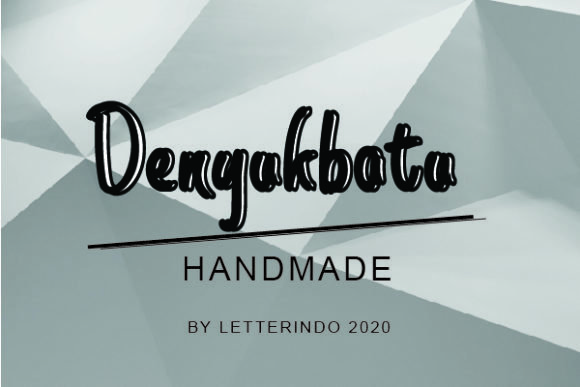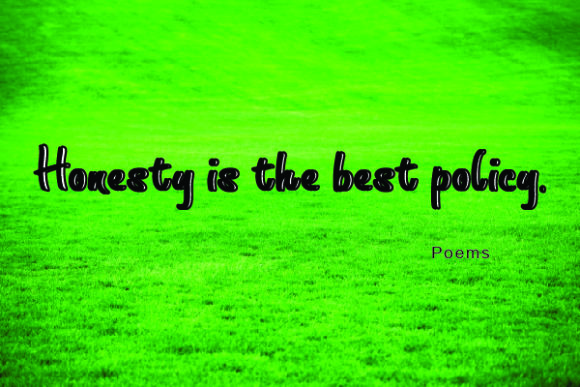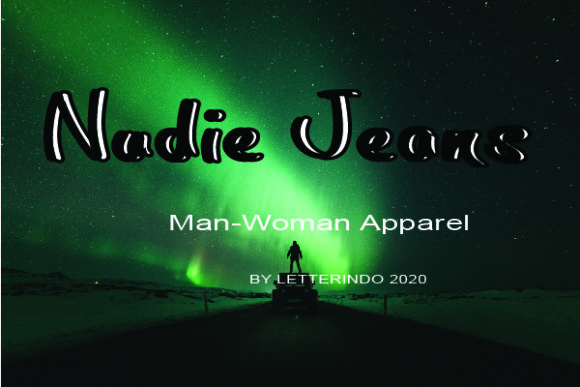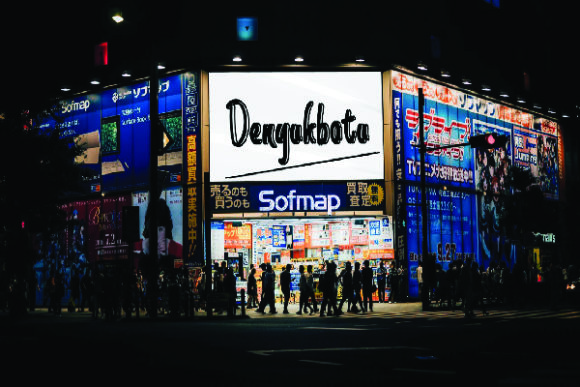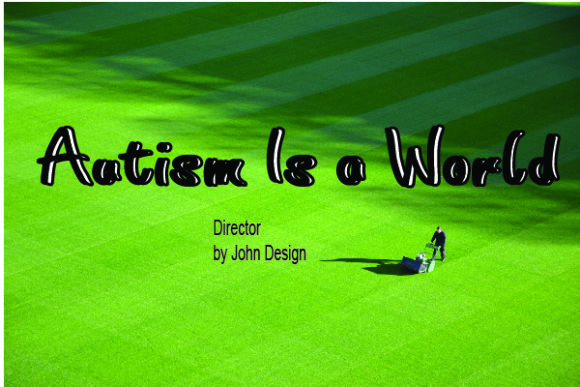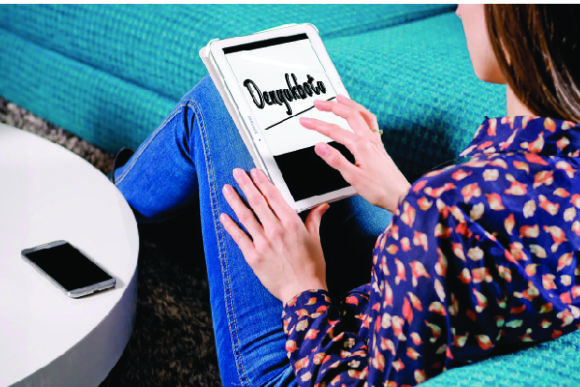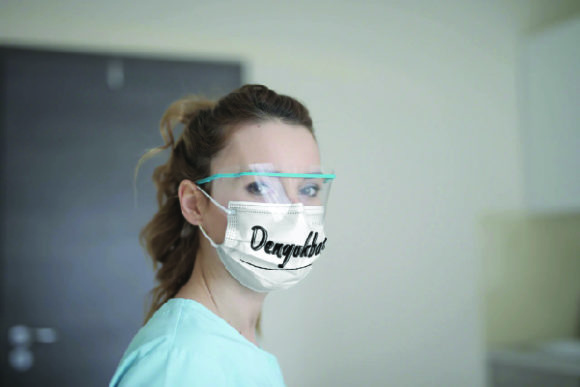
Get Ready to Unleash Your Creativity with the Perfect Font
Have you ever been in the middle of a design project, staring at a blank page, trying to come up with the perfect font to match your vision? That’s a feeling many designers know all too well. But what if you had the perfect tool to bring your ideas to life? Enter the Denyukbatu Font, a unique handwritten font designed to add a touch of personality to your designs.
This font is more than just a collection of letters – it’s a way to express yourself and connect with your audience on a deeper level. With its relaxed and playful style, Denyukbatu Font is perfect for a wide range of designs, from advertisements to social media graphics. Whether you’re a seasoned designer or just starting out, this font is sure to be a valuable addition to your toolkit.
Denyukbatu Font Key Features
- Font Family: Denyukbatu, a unique and custom-designed font family.
- Unique Characteristics: Features a distinctive, hand-drawn aesthetic with intricate details and subtle flourishes, making it ideal for creative and artistic applications.
Denyukbatu Font Review
At first glance, the Denyukbatu font appears to be a unique and interesting choice. ✨ The combination of sans-serif and handwritten elements gives it a quirky, modern feel that could work well for creative or informal projects.
Here are some of the things that I like about the Denyukbatu font:
- ✨ The font’s irregularities add a touch of personality and whimsy to text.
- ✨ The font is highly customizable, allowing users to adjust various settings to achieve the desired look.
- ✨ The font includes a wide range of languages, making it a versatile choice for multilingual projects.
However, I do have some concerns about the Denyukbatu font:
- ⚠️ The font’s irregularities can also make it difficult to read in certain situations, particularly at small font sizes.
- ⚠️ The font may not be suitable for formal or traditional projects, as it can come across as too playful or unprofessional.
- ⚠️ The font’s customization options can also make it overwhelming to adjust settings, particularly for users who are not familiar with font design.
Overall, I would say that the Denyukbatu font is a solid choice for creative or informal projects, but it may not be the best fit for more formal or traditional projects. With some careful consideration and adjustment, it can be a great addition to any design toolkit.
To get the most out of Denyukbatu Font, use it for creative projects that require a unique and eye-catching font, such as:
- Infographics
- Brochures
- Posters
- Wedding invitations